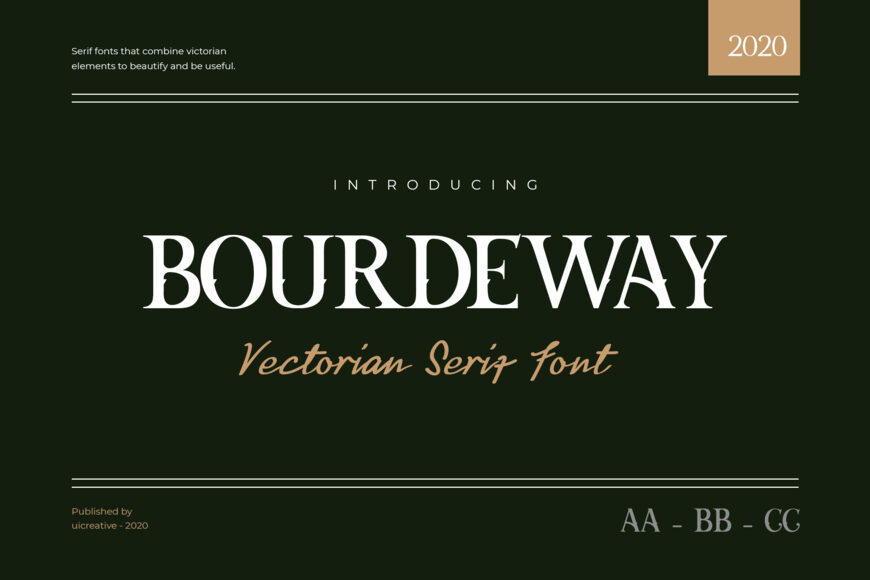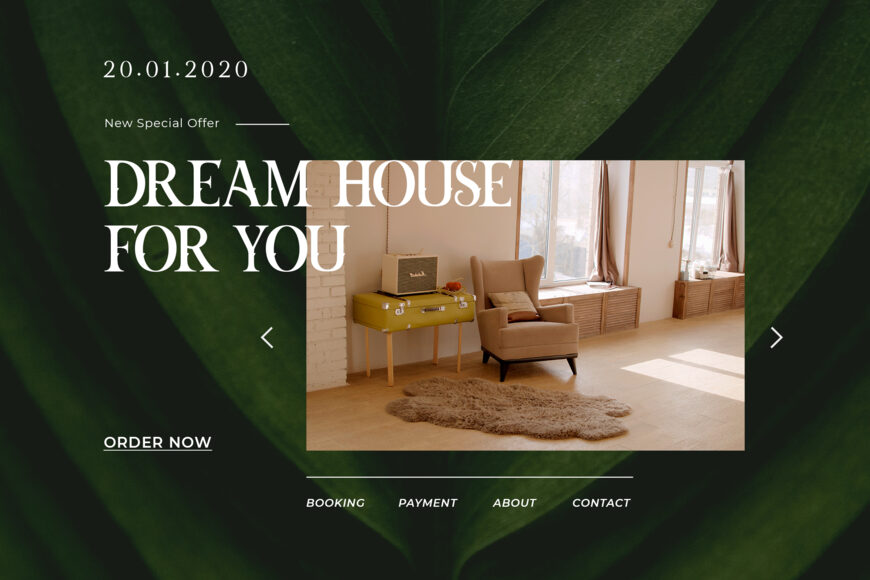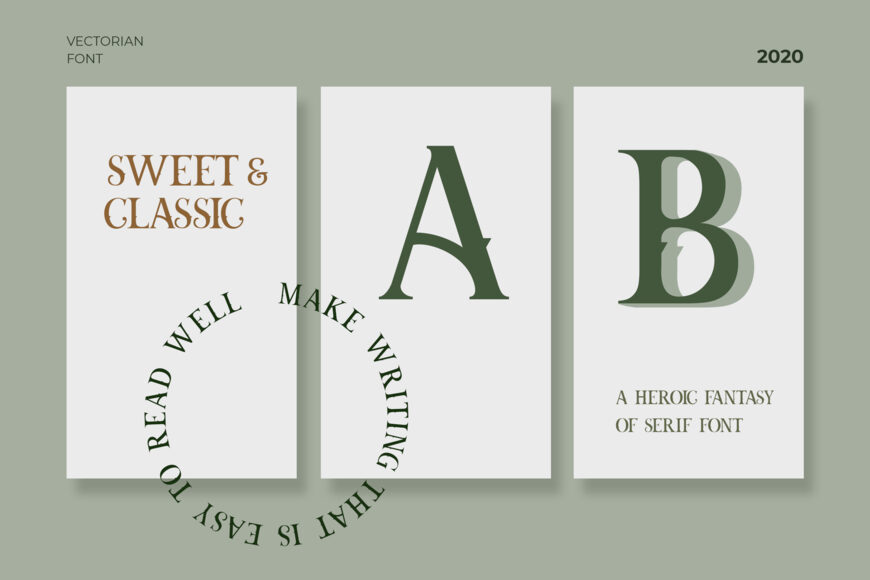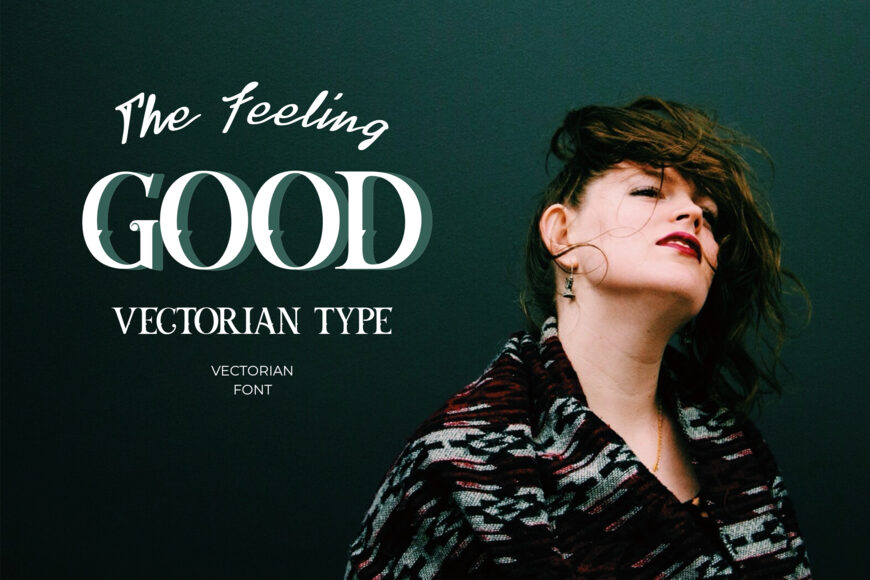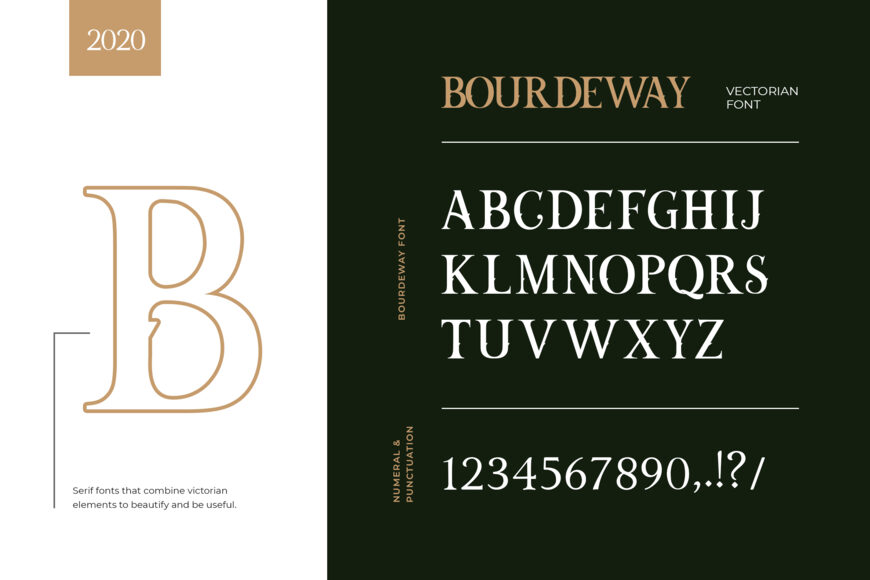
Bourdeway Font
Bourdeway is a victorian-serif font embodying vintage and elegant curves with functional structure. It has a characteristic with combinations of sharp edges, and curvy lines.
Bourdeway is available in uppercase, lowercase, numerals, basic punctuations, and Opentype features (alternate and swash characters). It is perfect to be applied in a variety of formal forms such as invitations, labels, menus, logos, fashion, stationery, letterpress, magazines, books, greeting/wedding cards, packaging, labels, and much more.